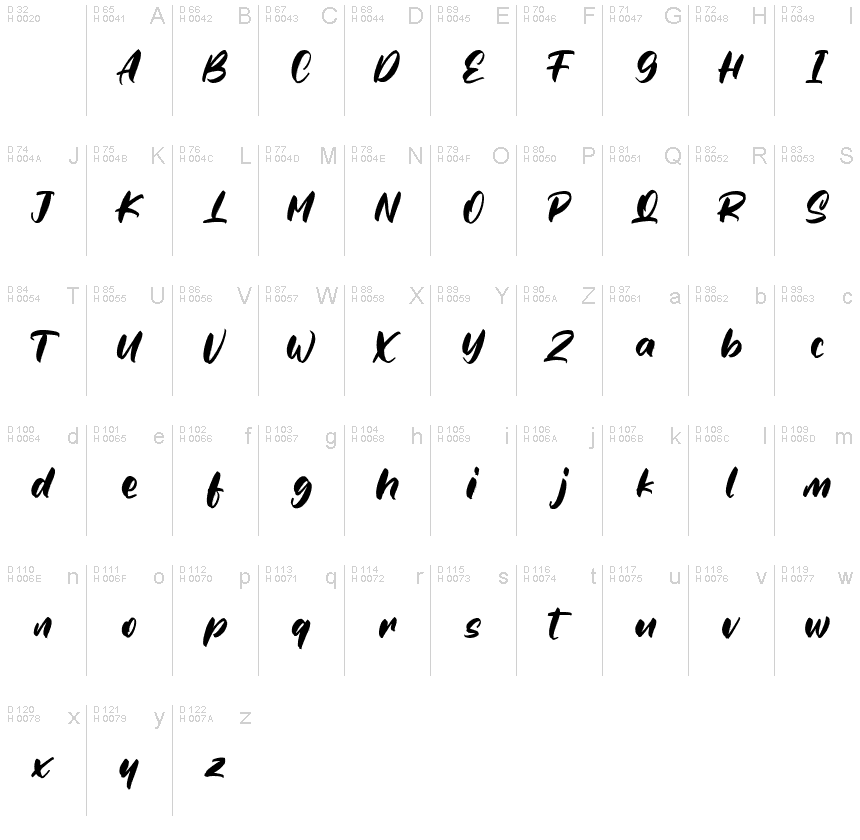
Darkbones Free Regular
Darkbones, the bold brush font by Maulana Creative, exudes modernity and edginess. Its thick strokes and dynamic curves make it perfect for creating eye-catching headlines, logos, and posters. The strong personality of Darkbones lends itself well to projects seeking a daring and rebellious aesthetic. Whether you're designing album covers for punk bands, fashion magazines, or urban-inspired websites, this typeface will add a touch of attitude and originality. With Darkbones, your designs will captivate audiences and leave a lasting impression in the ever-evolving world of creativity.